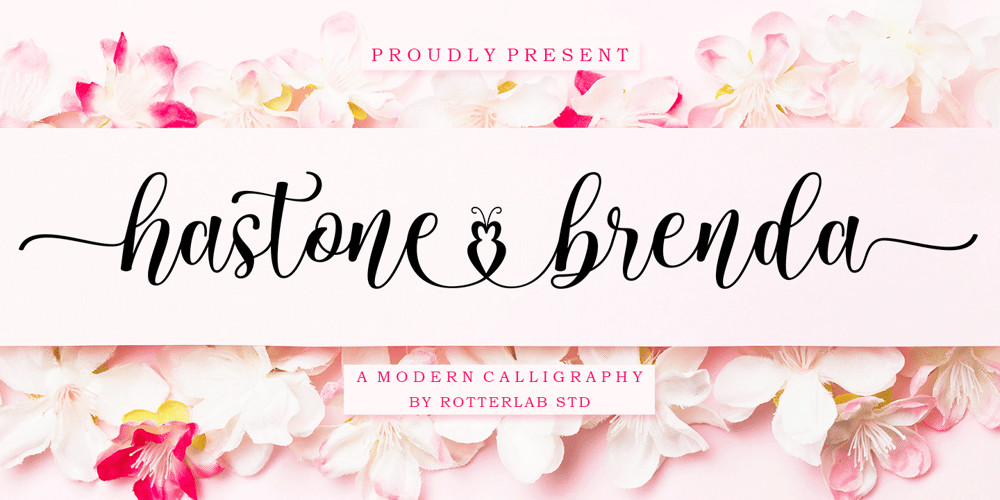
Hastone Brenda Font Family was designed by Sidiq Fahmi and published by Rotterlab Studio. Hastone Brenda contains 1 styles and family package options. Hastone Brenda is a new modern script font with an irregular baseline. Hastone Brenda looks lovely on wedding invitations, thank you cards, quotes, greeting cards, logos, business cards and more. Perfect for using in ink or watercolour. Including initial and terminal letters, alternates, ligatures and multiple language support.To enable the OpenType Stylistic alternates, you need a program that supports OpenType features such as Adobe Illustrator CS, Adobe Indesign & CorelDraw X6-X7, Microsoft Word 2010 or later versions. There are additional ways to access alternates/swashes, using Character Map (Windows), Nexus Font (Windows), Font Book (Mac) or a software program such as PopChar (for Windows and Mac).How to access all alternative characters:https://www.youtube.com/watch?v=Go9vacoYmBw https://www.youtube.com/watch?v=XzwjMkbB-wQhttps://www.youtube.com/watch?v=x1A_ilsBsGs https://www.youtube.com/watch?v=xFlMwARHusY Thanks so much for looking and please let me know if you have any questions.